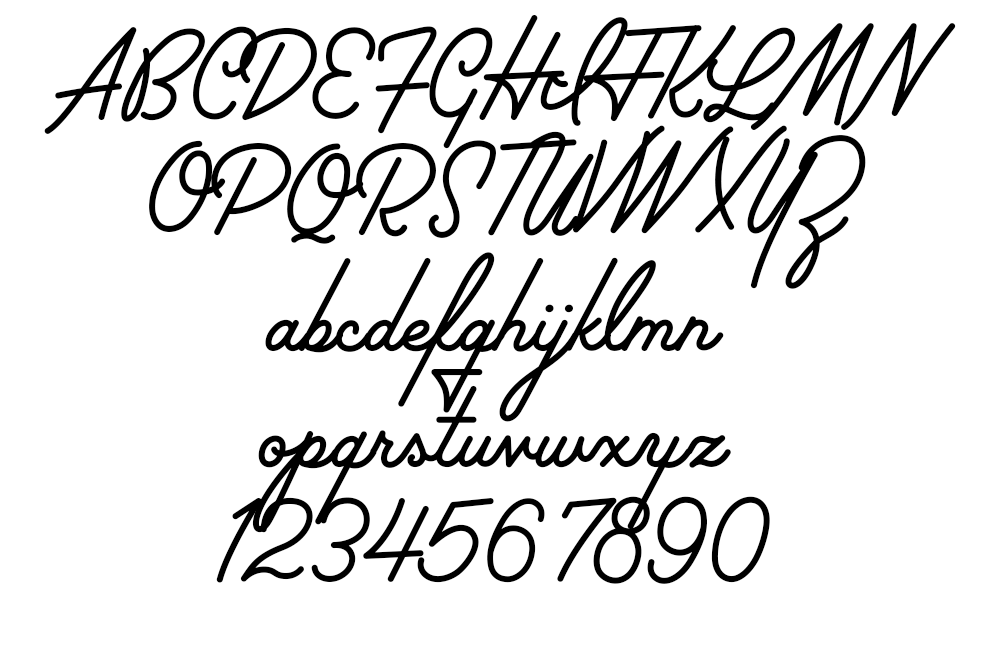
Palm Canyon Drive – Retro Monoline Script Font
Palm Canyon Drive captures the nostalgic charm of mid-century California. Inspired by matchbook covers, postcards, and Tiki bars, this script font brings vintage flair to your design.
Created with smooth monoline strokes, it offers a classy yet relaxed tone. It works well on movie posters, product packaging, or any project that needs a stylish retro touch. Whether you’re designing for Hollywood themes or roadside diners, Palm Canyon Drive brings back the golden era of the West Coast.